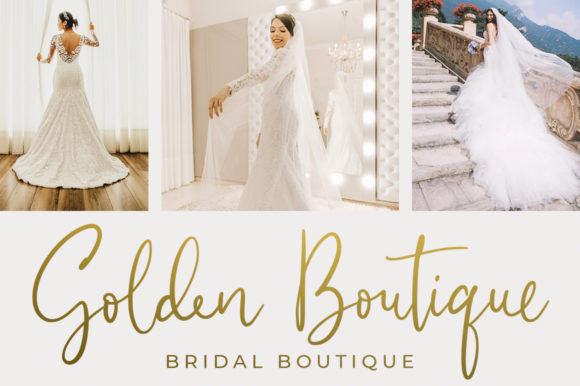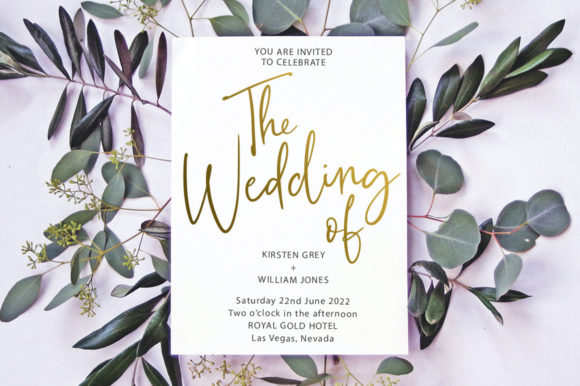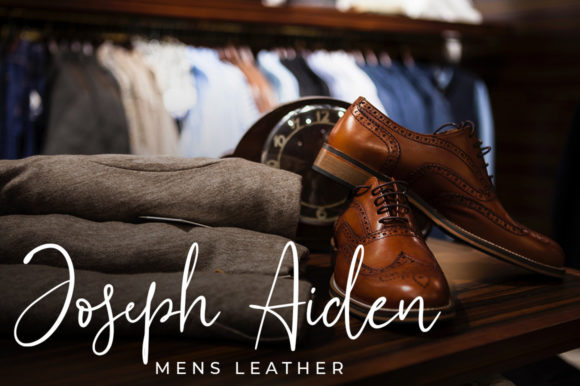
Introduction to Katherine Script Font
Have you ever found yourself staring at a blank page, struggling to bring your creative project to life? For many designers, the perfect font can be the key to unlocking inspiration and elevating their work to new heights. That’s exactly what the Katherine Script Font offers – a touch of elegance and sophistication that can instantly elevate any design.
Whether you’re working on a wedding invitation, a branding project, or a simple social media graphic, the Katherine Script Font is an invaluable design resource that can add a high-quality, professional touch to your work. Its delicate and refined lines make it perfect for designers who want to create a beautiful, refreshing look without compromising on quality.
As a free download, the Katherine Script Font is accessible to designers of all levels, and its PUA encoded design means you can easily access all of the glyphs and swashes to create unique and personalized designs. With its transparent background and high-quality design, the Katherine Script Font is a must-have for any designer looking to take their creative projects to the next level.
Key Features of Katherine Script Font
- High-quality, elegant script font suitable for various creative projects, such as invitations, logos, and typography-based designs.
- Unique characteristics include swashes, flourishes, and ligatures, adding a touch of sophistication and elegance to any design.
- Perfect for designers seeking a high-quality, free script font to elevate their creative project and leave a lasting impression on their audience.
Honest Review: Katherine Script Font
I’ve worked with my fair share of fonts, but the Katherine Script Font has truly caught my eye. This elegant script font is perfect for creative projects that require a touch of sophistication and class. Whether you’re designing a wedding invitation, a blog post, or a logo, the Katherine Script Font is sure to make your design stand out.
What works well: ✨ The font has a beautiful, flowing design that’s easy to read and looks great on both light and dark backgrounds. The high-quality design and smooth curves make it perfect for a variety of design projects. Plus, it’s available for free download, making it a valuable design resource for anyone on a budget.
What doesn’t work well: ⚠️ The font doesn’t come with a transparent background option, which can make it a bit tricky to use in certain situations. Additionally, the font may not be suitable for projects that require a lot of bold or italic text, as it can become difficult to read.
Overall, I’m really impressed with the Katherine Script Font. It’s a great addition to any designer’s toolkit, and its free download makes it a steal. Just be aware of its limitations, and you’ll be well on your way to creating beautiful designs with this font.
- Perfect for creative projects that require a touch of sophistication and class
- High-quality design with smooth curves
- Not suitable for projects with bold or italic text
- No transparent background option
For a high-quality design, use the Katherine Script Font on a transparent background to create a subtle, elegant look. Experiment with different font sizes and styles to add visual interest to your creative project.
The Katherine Script Font is ideal for designing wedding invitations, party invitations, and other creative projects that require a touch of elegance and sophistication. It’s also a great design resource for creating logos, menus, and other visual elements that need a high-end look.